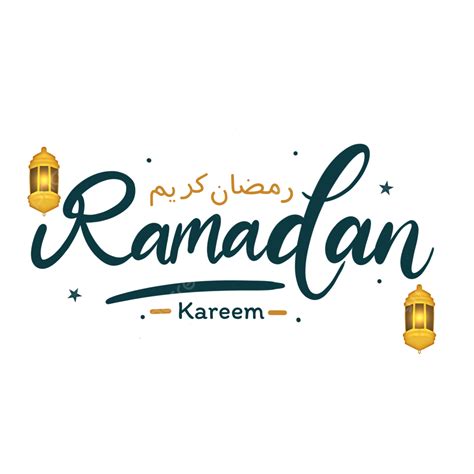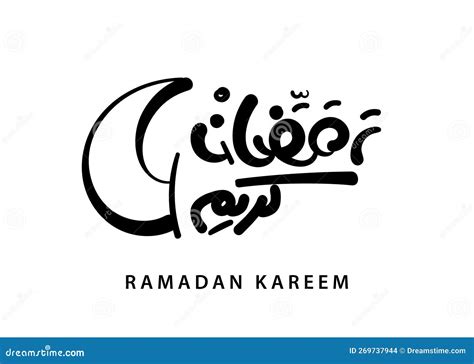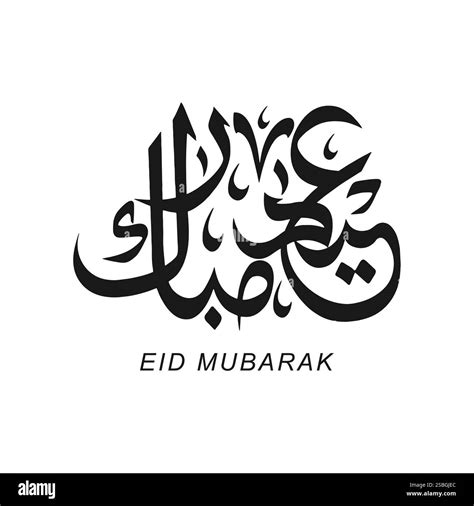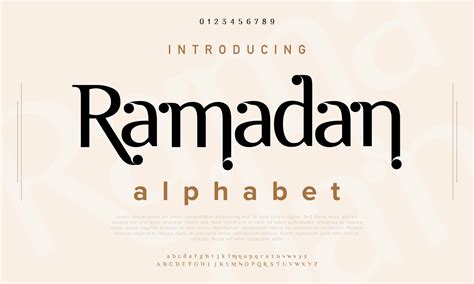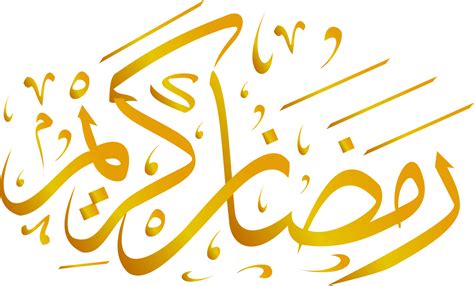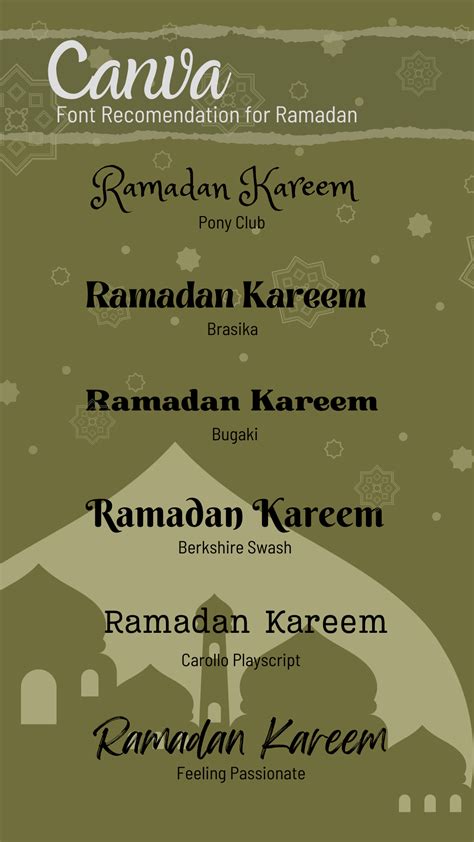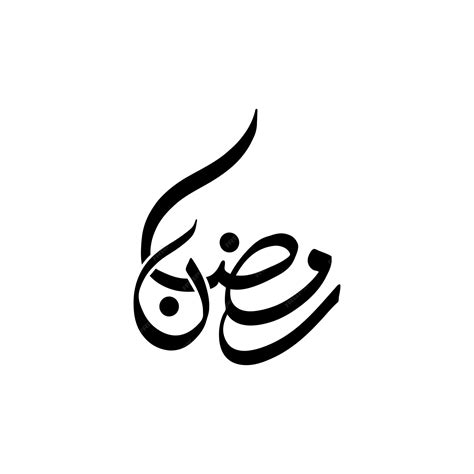
Choose the perfective font for Ramadan is a critical designing pick that shapes the visual identity of your holiday projects, whether you are create societal medium graphic, recognize cards, or case flyers. As the holy month approaches, the need for aesthetic consistency get paramount to reflect the spirit of musing, peace, and community. Choosing a typeface that poise readability with cultural elegance can transform a simple message into a powerful visual experience that resonates with your hearing on a deeper level. By understanding the intersection of typography, ethnical significance, and mod design rule, you can insure your seasonal content stand out while maintaining the respect and warmth colligate with this consecrated period.
The Significance of Typography in Cultural Design
Typography serve as the voice of your brand or message. During Ramadan, optic communicating relies heavily on carry heat, sincerity, and tradition. When you choose a baptistery for Ramadan, you are essentially establishing the tone for your integral drive. A carefully take hand or display font can evoke feelings of nostalgia and unearthly connection, while a cleaner, more modern sans-serif might symbolise unity and advance.
Key Design Elements for Ramadan Projects
To create professional-looking designs, take the following ingredient:
- Readability: Ensure that the schoolbook remains readable still at smaller scale on nomadic devices.
- Cultural Context: Look for baptistry that incorporate motifs reminiscent of Islamic calligraphy or geometrical art without compromise availability.
- Color Palette Integration: Your font mode should complement your alternative of colours, such as deep greens, gold, and midnight megrims.
- Hierarchy: Use ornamental typeface for lintel and open, legible fonts for body textbook to maintain a professional layout.
Choosing the Right Font Style
There is no one-size-fits-all solution when searching for a font for Ramadan. Your choice bet entirely on your specific medium and hearing. Hither is a breakdown of popular categories used during this season:
| Font Style | Best Used For | Vibe |
| Calligraphic/Script | Recognise cards and title | Elegant, Traditional, Personal |
| Modern Geometric | Societal media billet and UI | Contemporary, Minimalist, Clear |
| Display Serif | Posters and advertisements | Sophisticated, Bold, Impactful |
💡 Note: Always essay your elect font across different devices to check that especial fibre or ligature furnish correctly in your pattern package.
Balancing Tradition and Modernity
Many designers endeavor to bridge the gap between ancient esthetic tradition and modern digital demand. When searching for a font for Ramadan, prioritise option that proffer high-quality kerning and wide words support. This see that your composition looks polished and professional, disregardless of whether you are make substance for mark or digital platform.
Best Practices for Ramadan Digital Campaigns
Digital content requires specific attention to point. Because exploiter scroll through provender quickly, your composition motivation to halt the coil while sustain the gravitas of the function. Use high-contrast color combinations to insure that your text is easy clear against meddling backgrounds, which is a mutual challenge when utilise intricate patterns or Ramadan-themed photography.
Essential Tips for Implementation
- Continue your message concise to ensure font sizing remains impactful.
- Apply pernicious drop shade exclusively if necessary, as they can sometimes interfere with delicate hand typeface.
- Group your information logically to conduct the viewer's eye through the most important portion of your announcement.
💡 Tone: Avoid overdrive too many font mode in a single design; lodge to one or two complemental face create a much more cohesive looking.
Mastering the art of select the ideal font for Ramadan involves a serious-minded proportion between aesthetics and functionality. By prioritize discernability and aline your typeface selection with the nucleus values of the month, you can produce designs that genuinely resonate with your community. Whether you opt for a hellenic script or a processed mod typeface, the consistency and care you put into your composition will doubtless lift your ocular communicating throughout the entire season, ensuring your content is delivered with beauty and clarity.